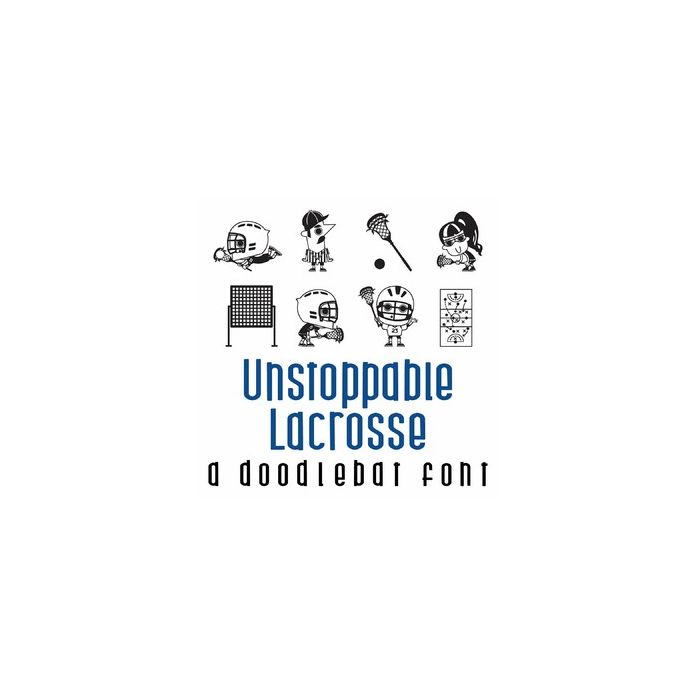
Unstoppable Lacrosse Doodlebat Font
This fun doodlebat font features 26 lacrosse themed imagery. Perfect for cards, gifts, decor, crafts, scrap book pages, planner stickers and more